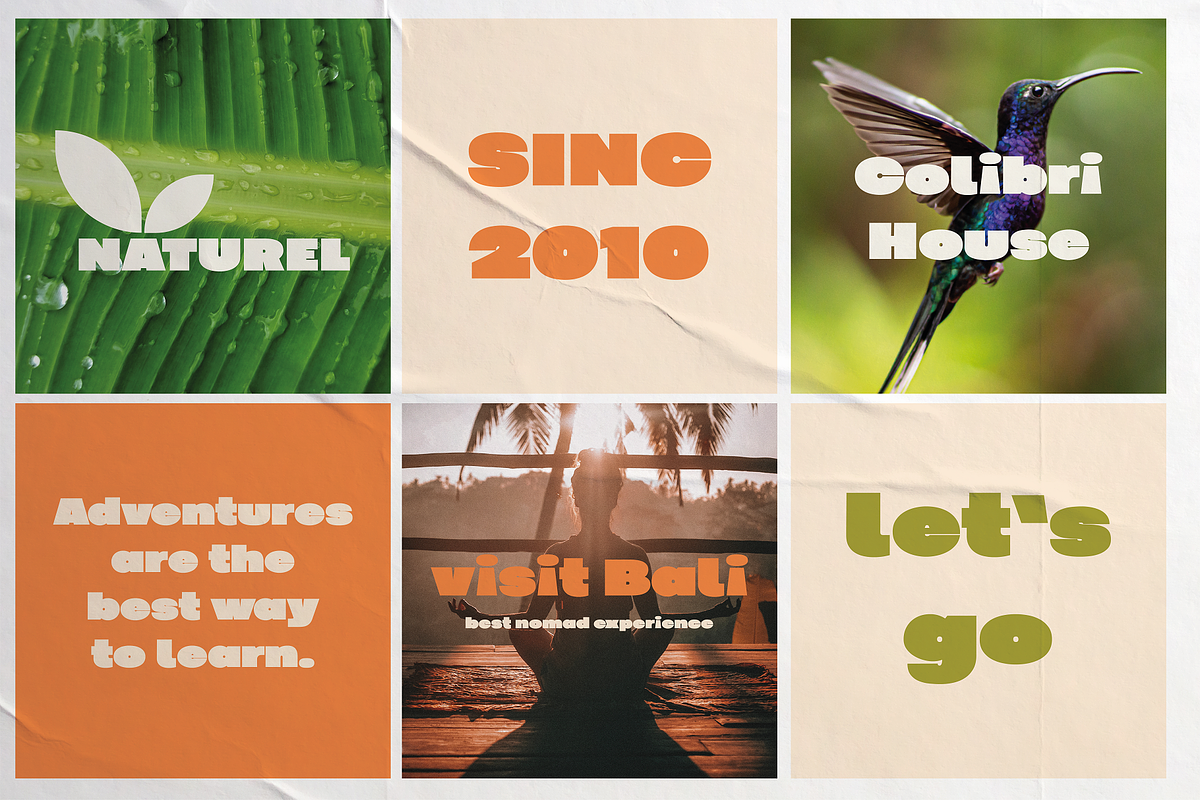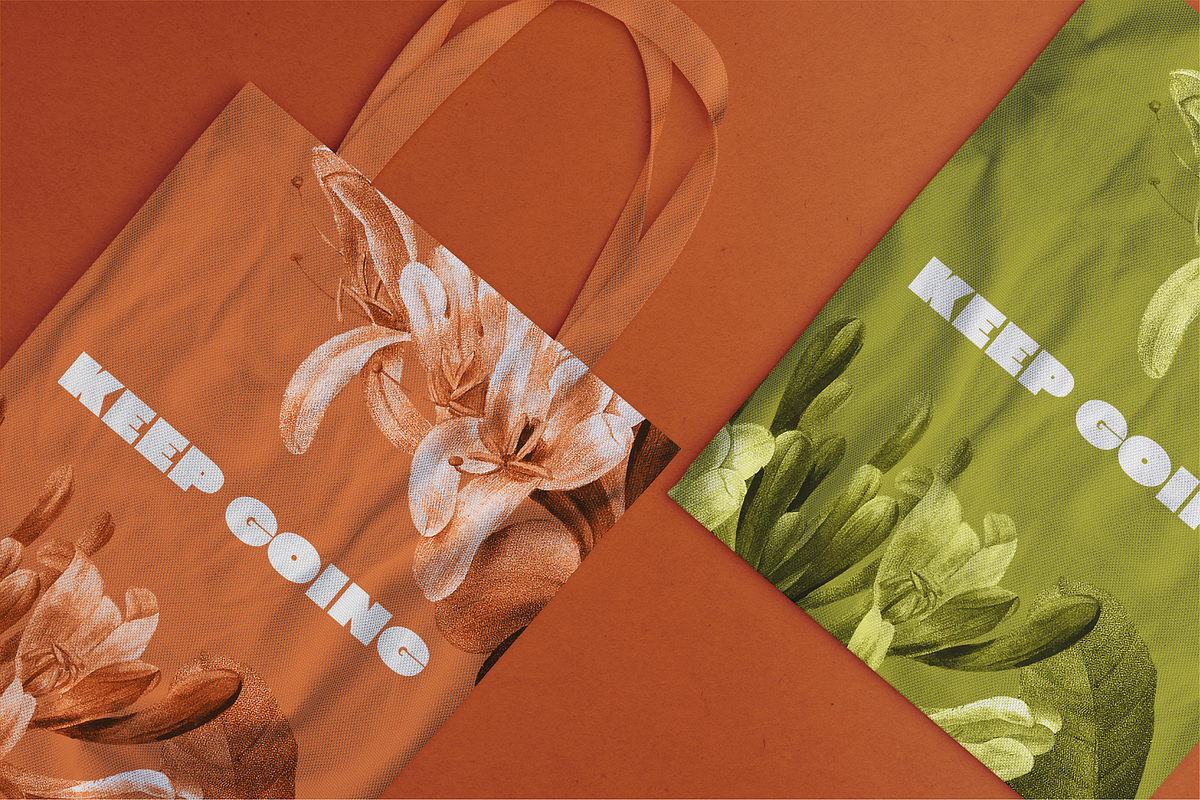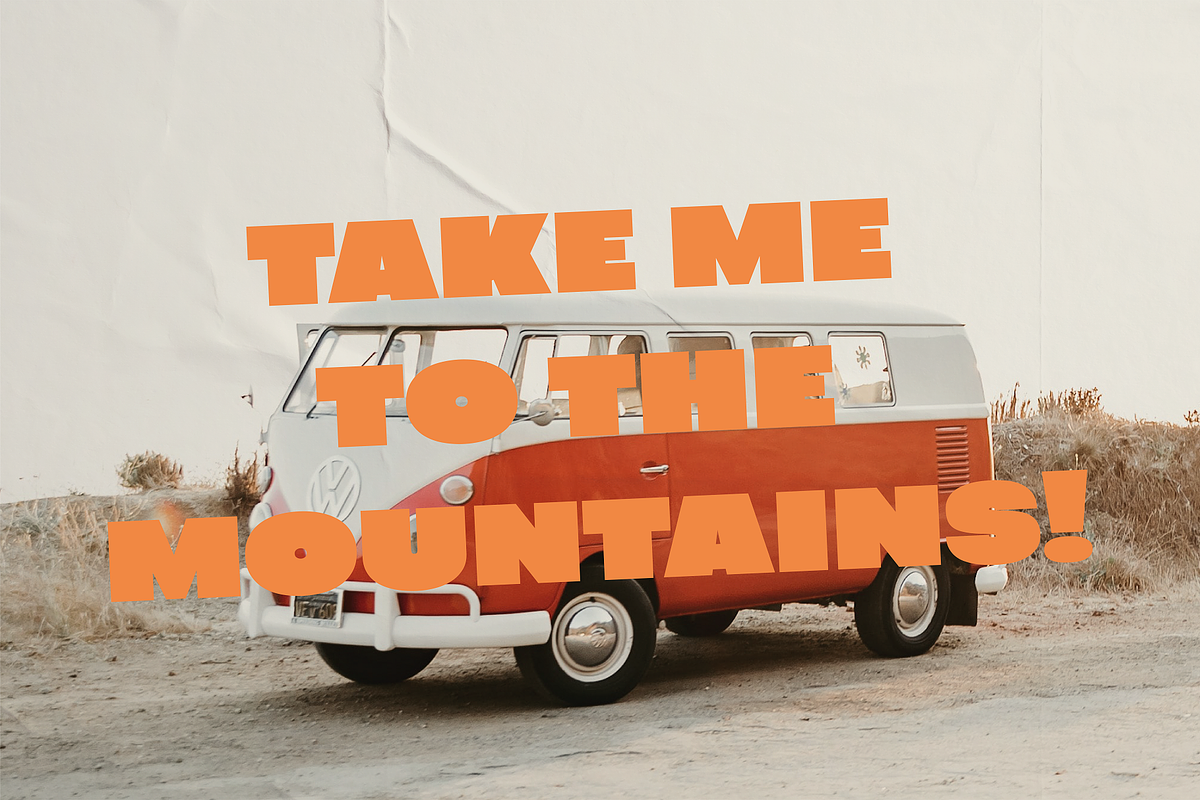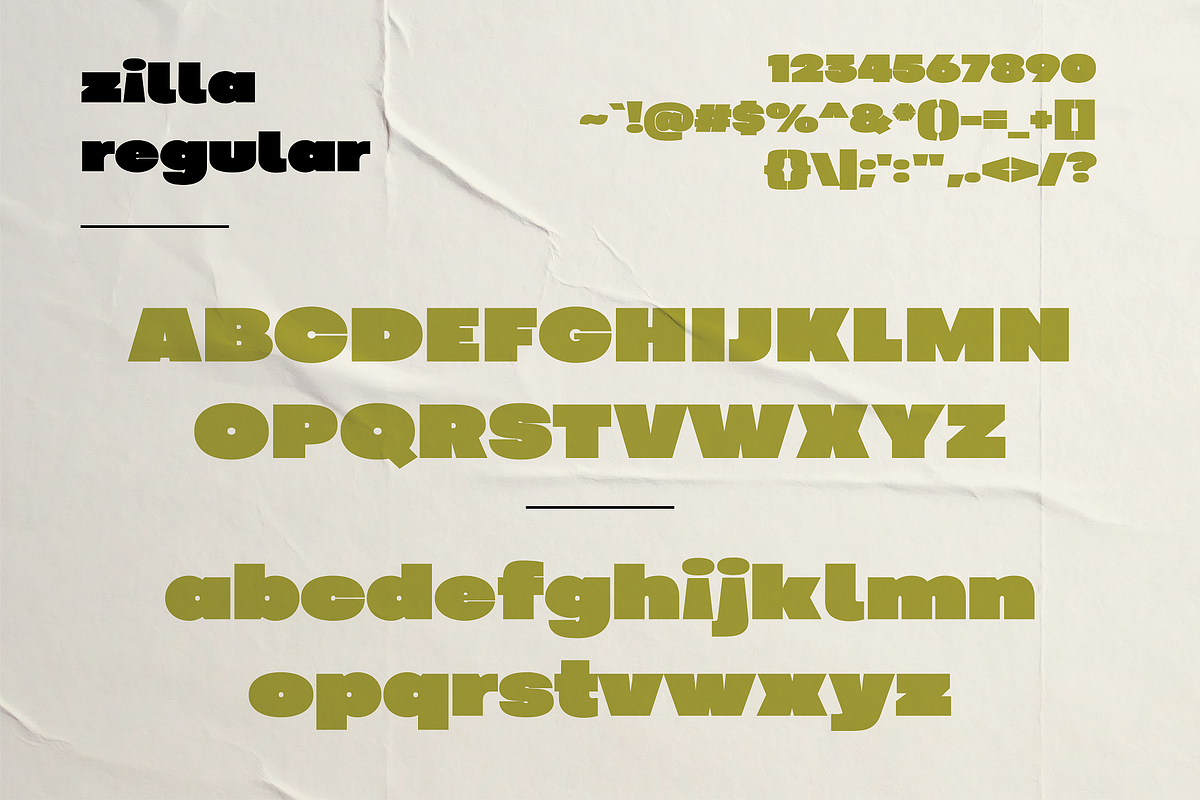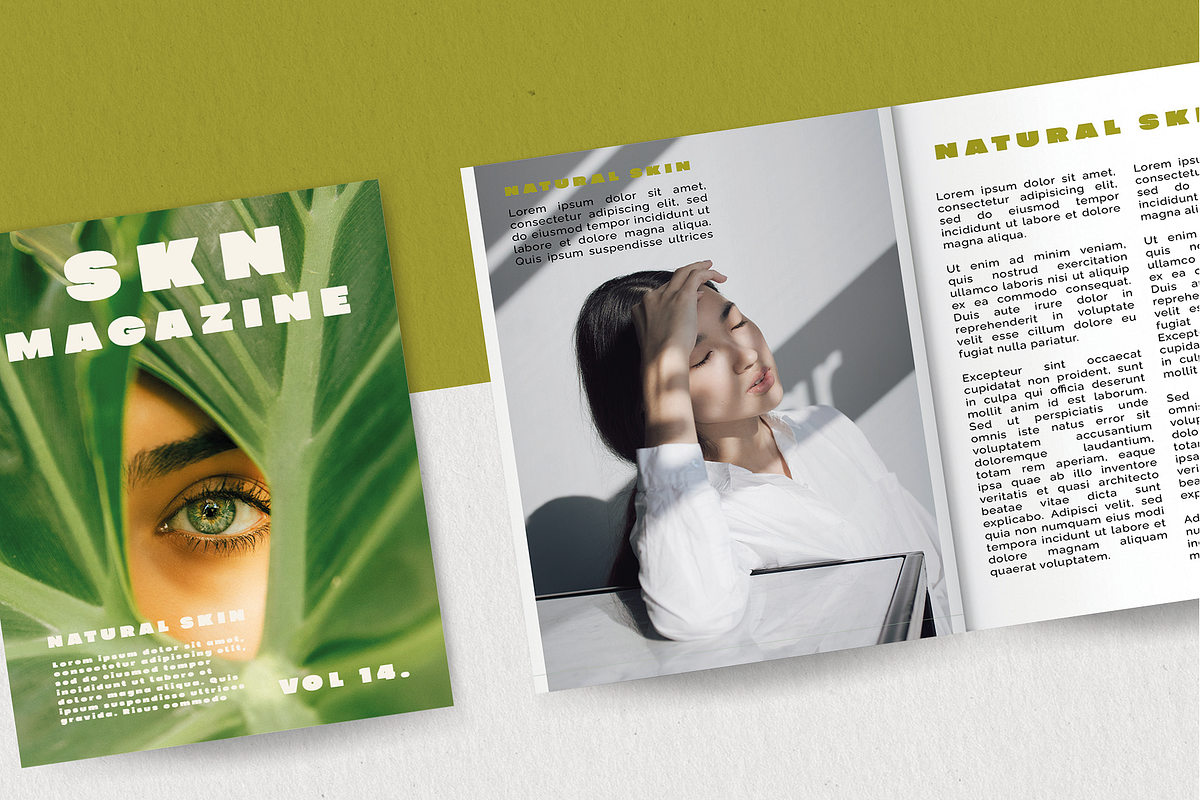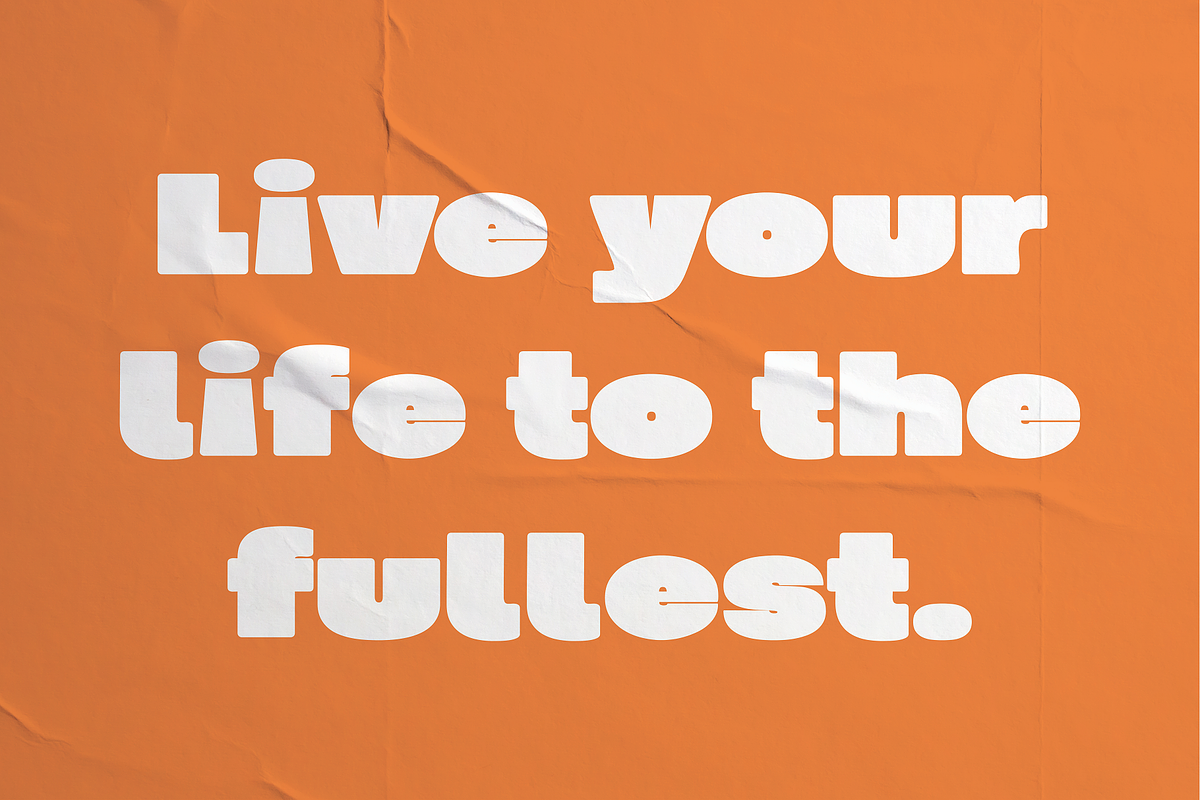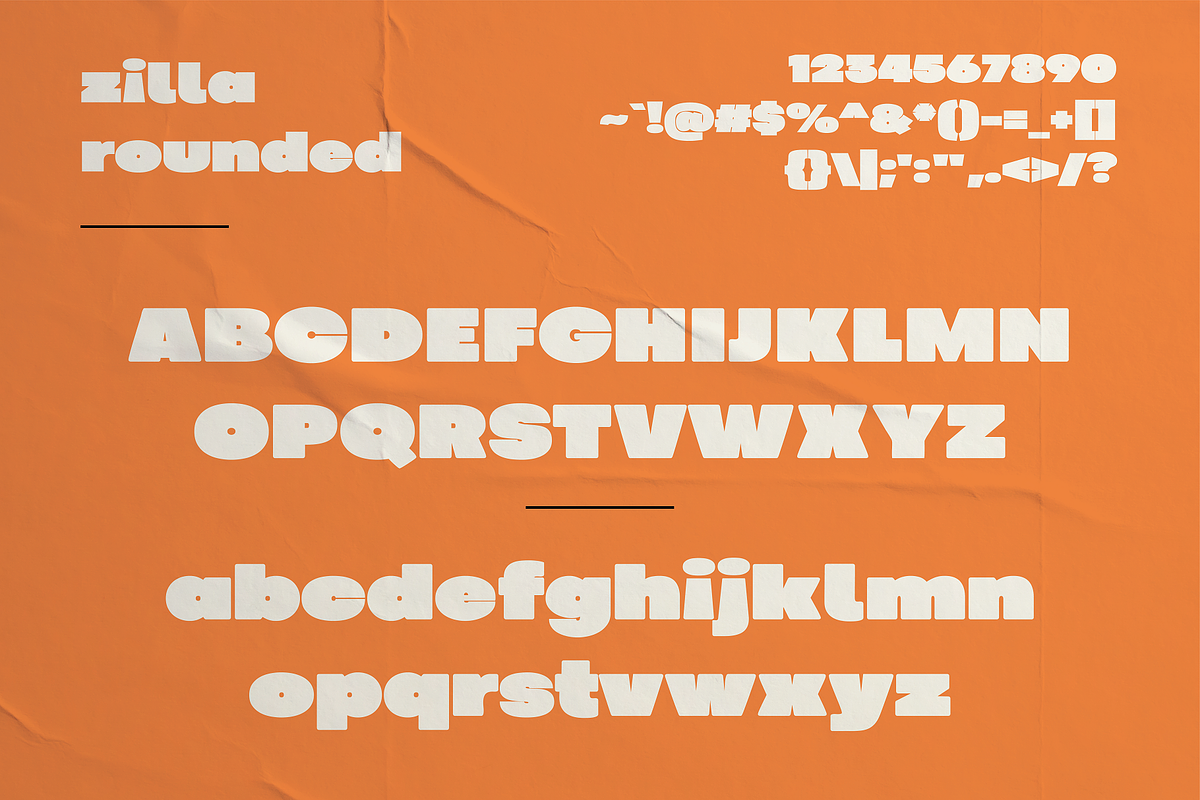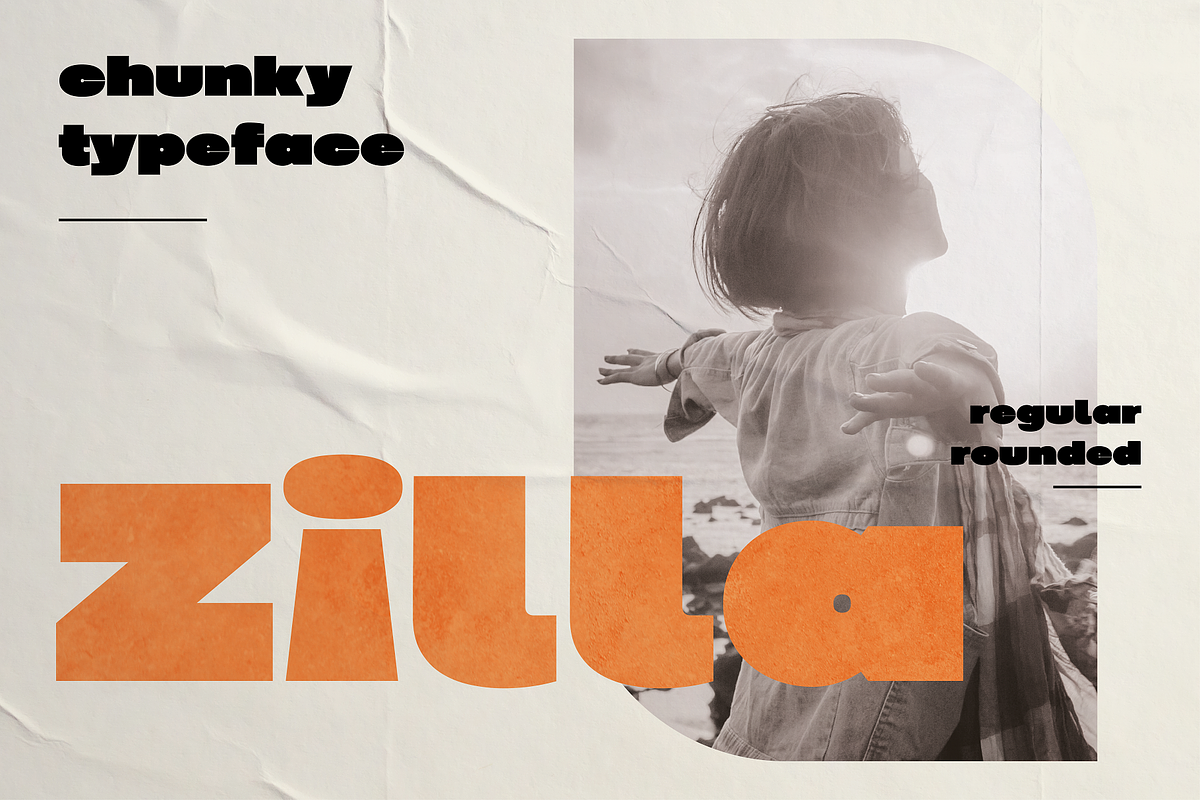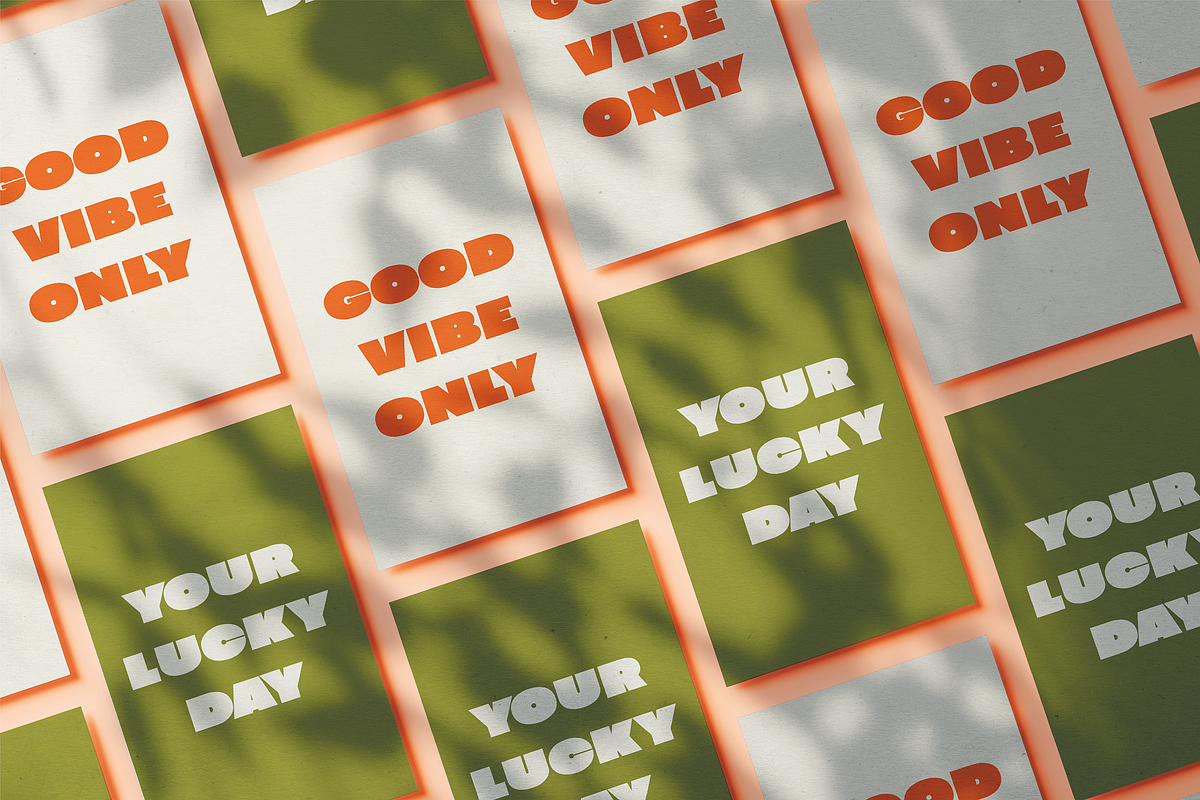
Zilla - Chunky Display
Zilla is a chunky display typeface. This beautiful thick, quirky, and bold font is ideal for headlines, covers, social media, thumbnails, books, stationary, packaging, branding, and more. Zilla comes in two flavors, regular and rounded allowing you to create expressive, beautiful, and playful designs. Enjoy!